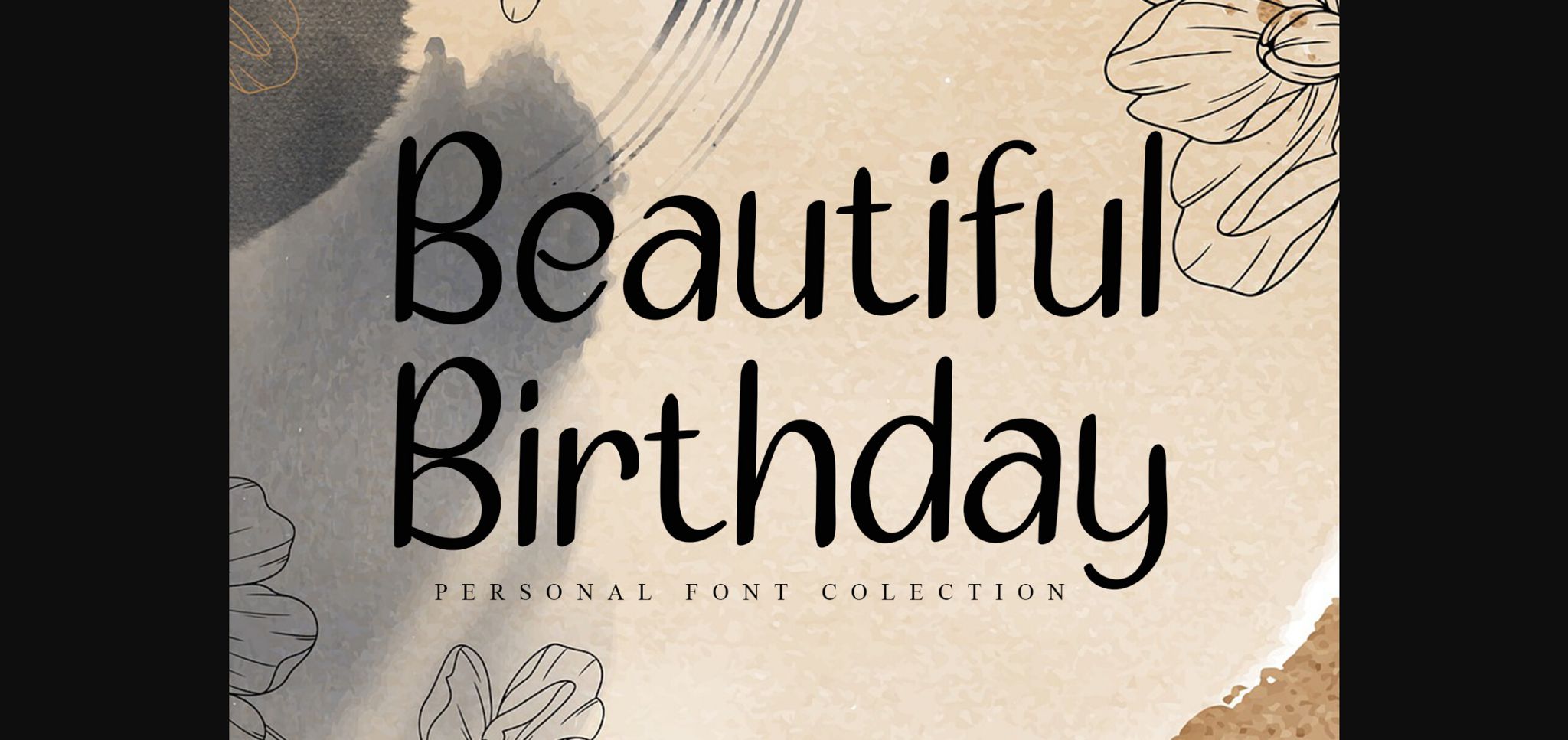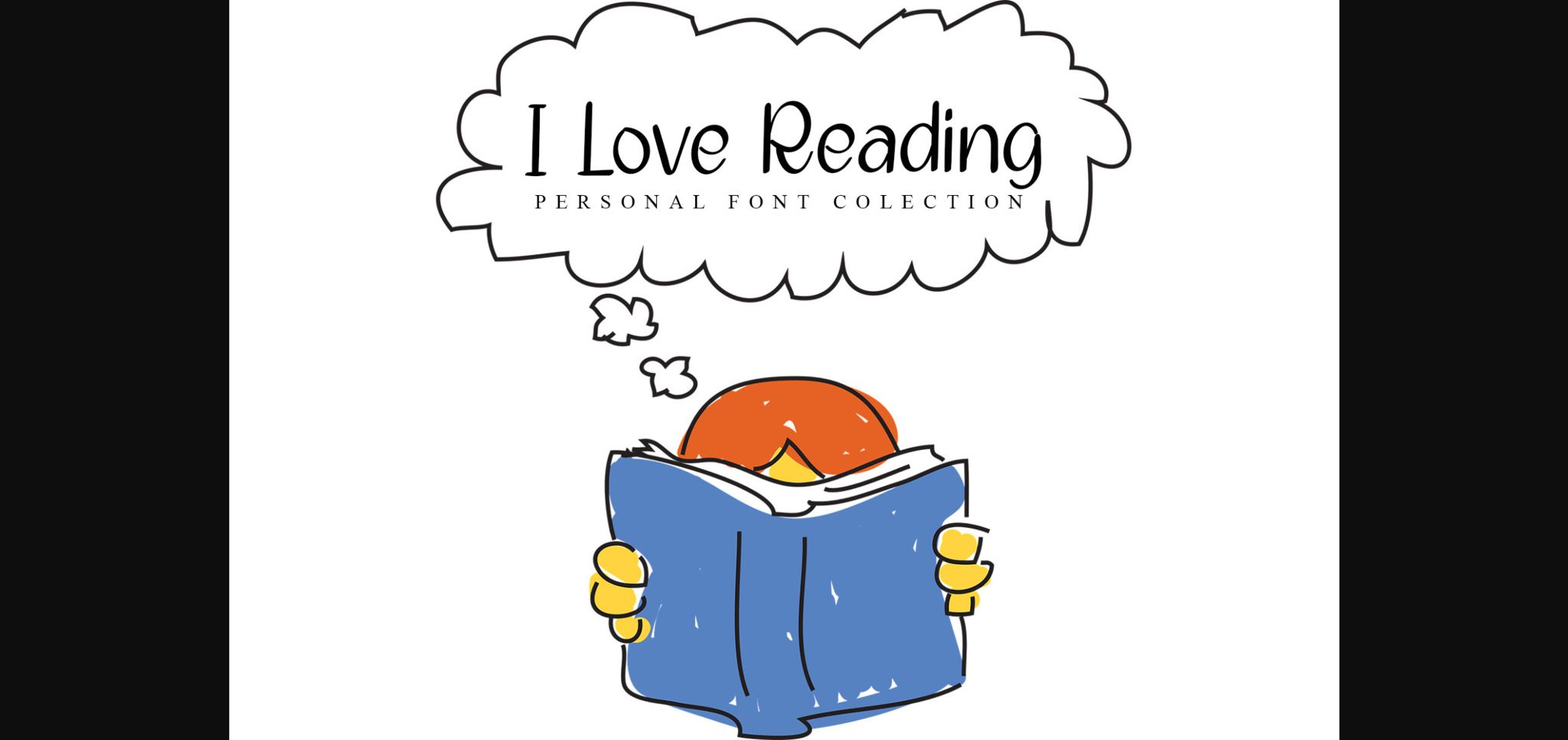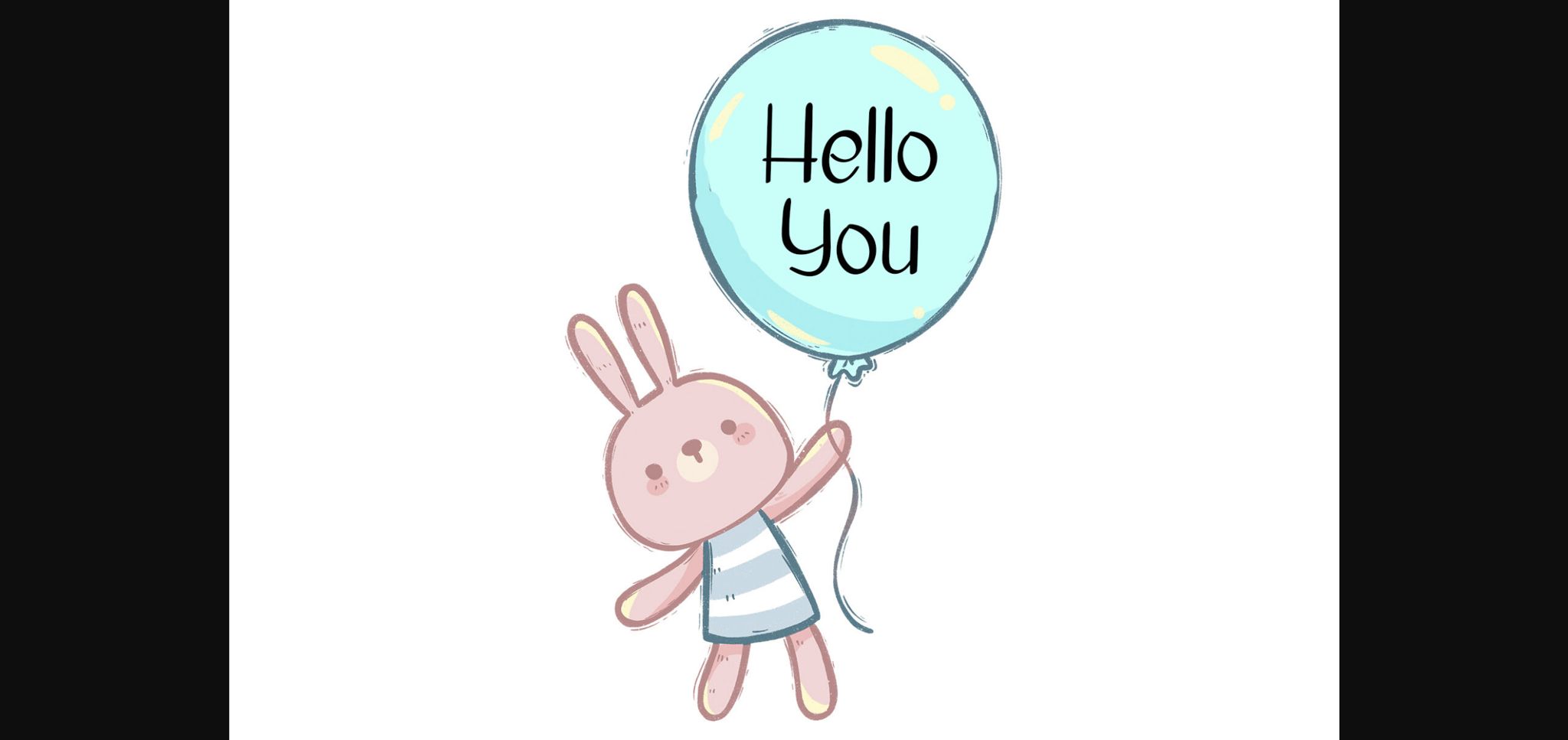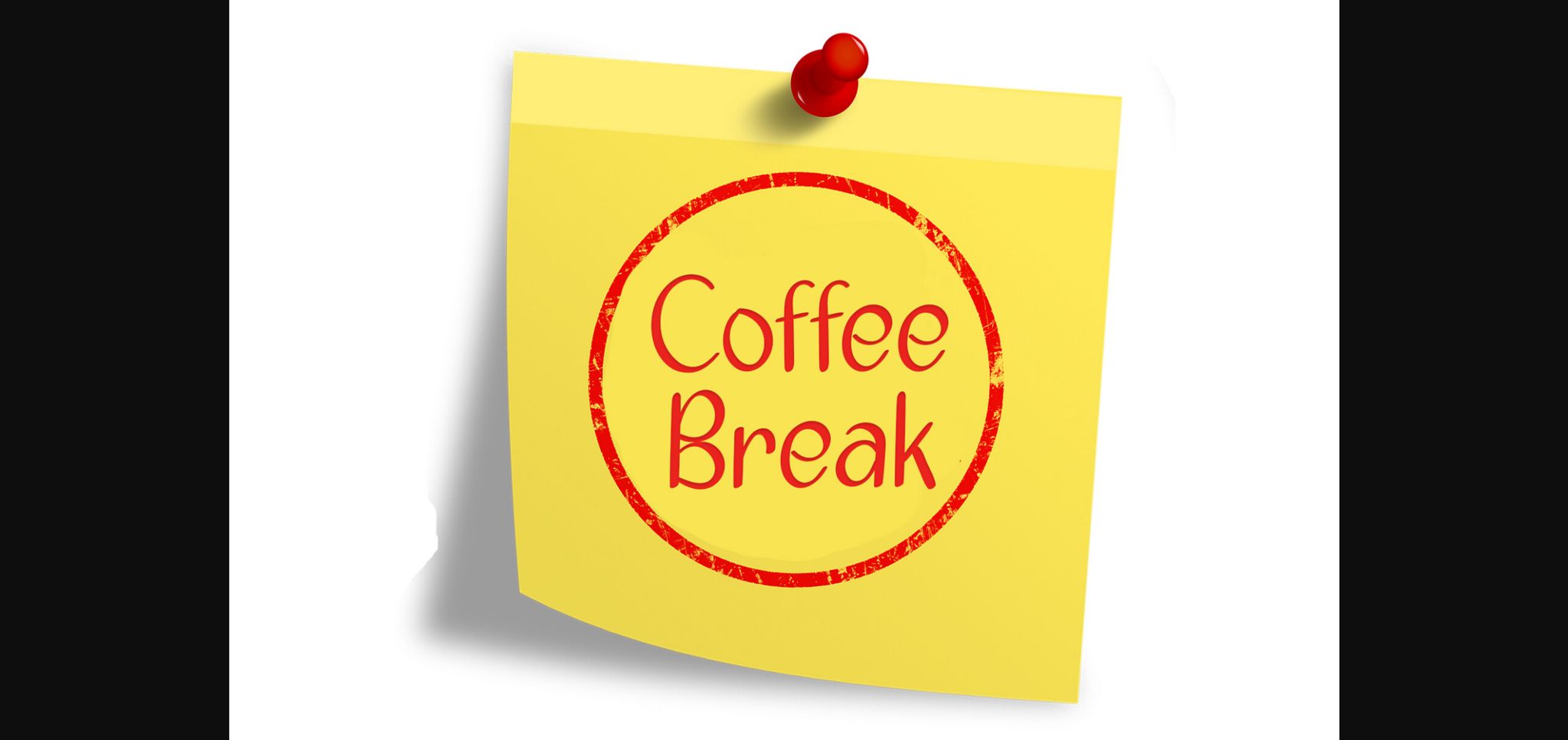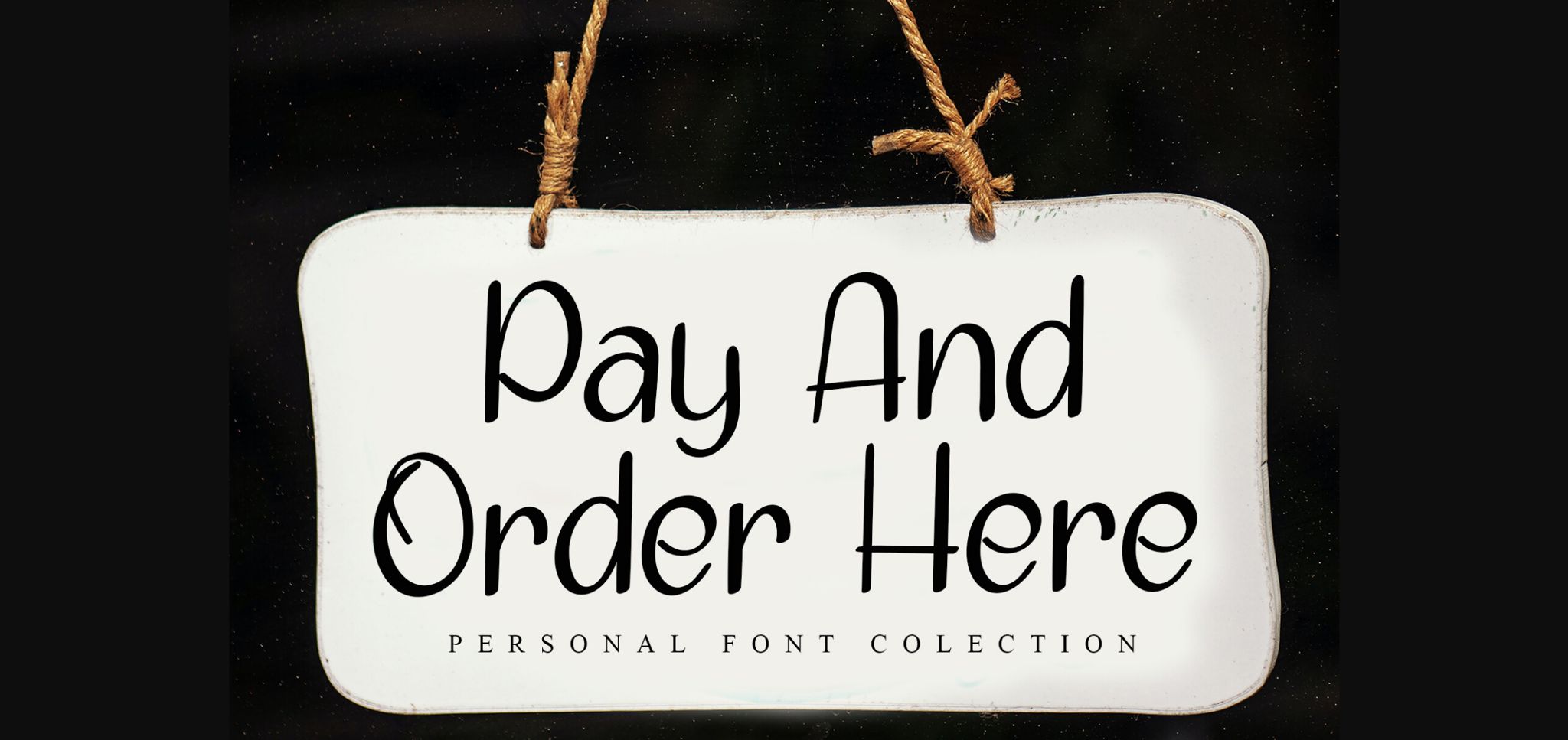
Beautiful Birthday Font
About Beautiful Birthday Font
Beautiful Birthday is a unique and elegant font. Looks great on wedding invitations, greeting cards, billboards, logos, business cards, and any other design that requires a handwritten touch. This font features varied baseline, created with a natural, hand-made touch. So that it creates spectacular creations and will make your ideas look more real. This font is PUA encoded which means you can access all glyphs and swashes with ease!